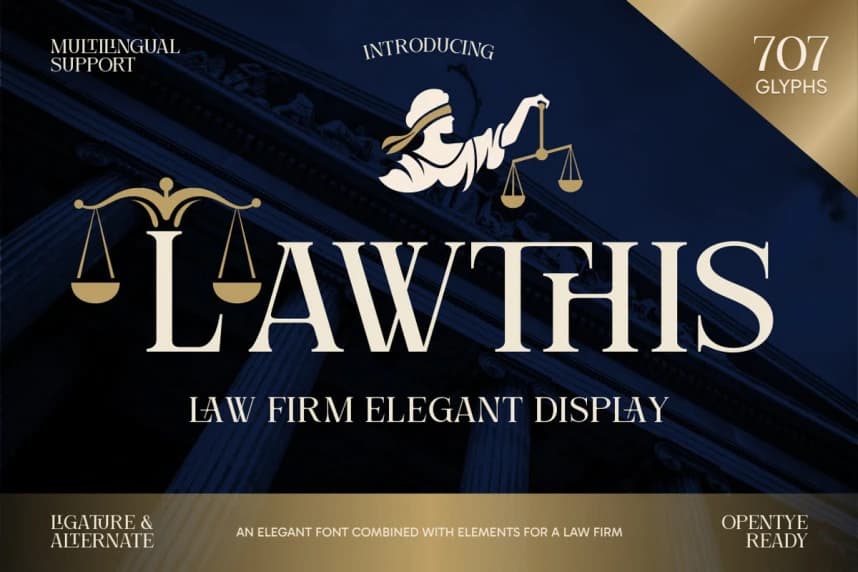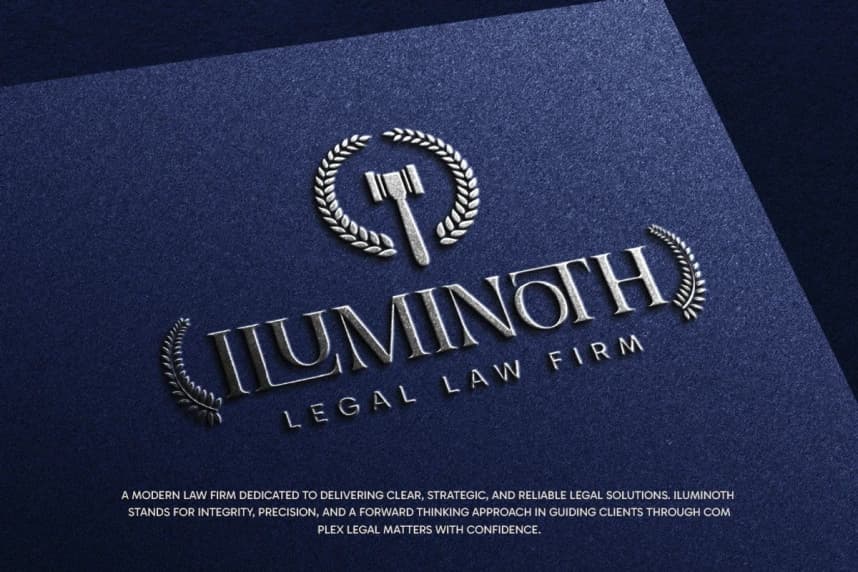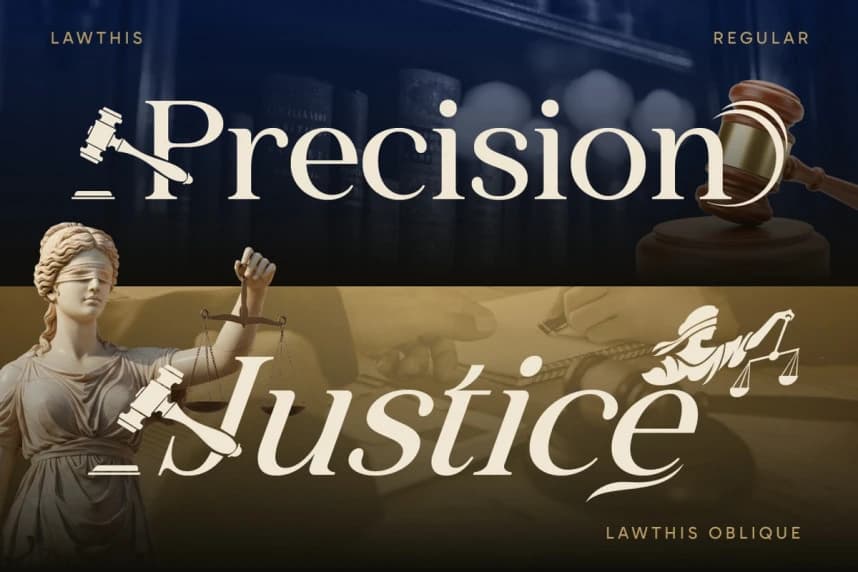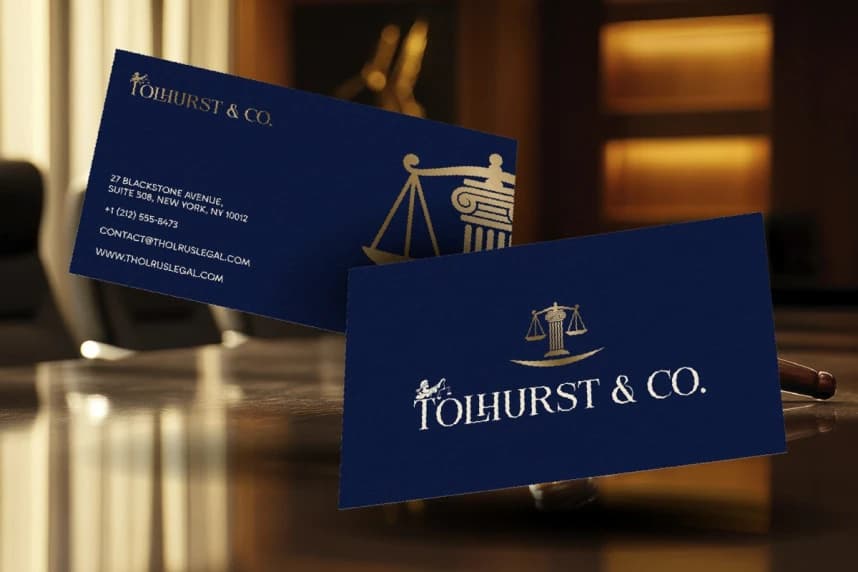
Lawthis Font
Lawthis Font is an elegant serif display font crafted specifically for legal, corporate, and luxury branding. Inspired by the timeless aesthetic of courtrooms, justice symbols, and classic law firm identities, this font delivers a strong and refined presence in every letterform.